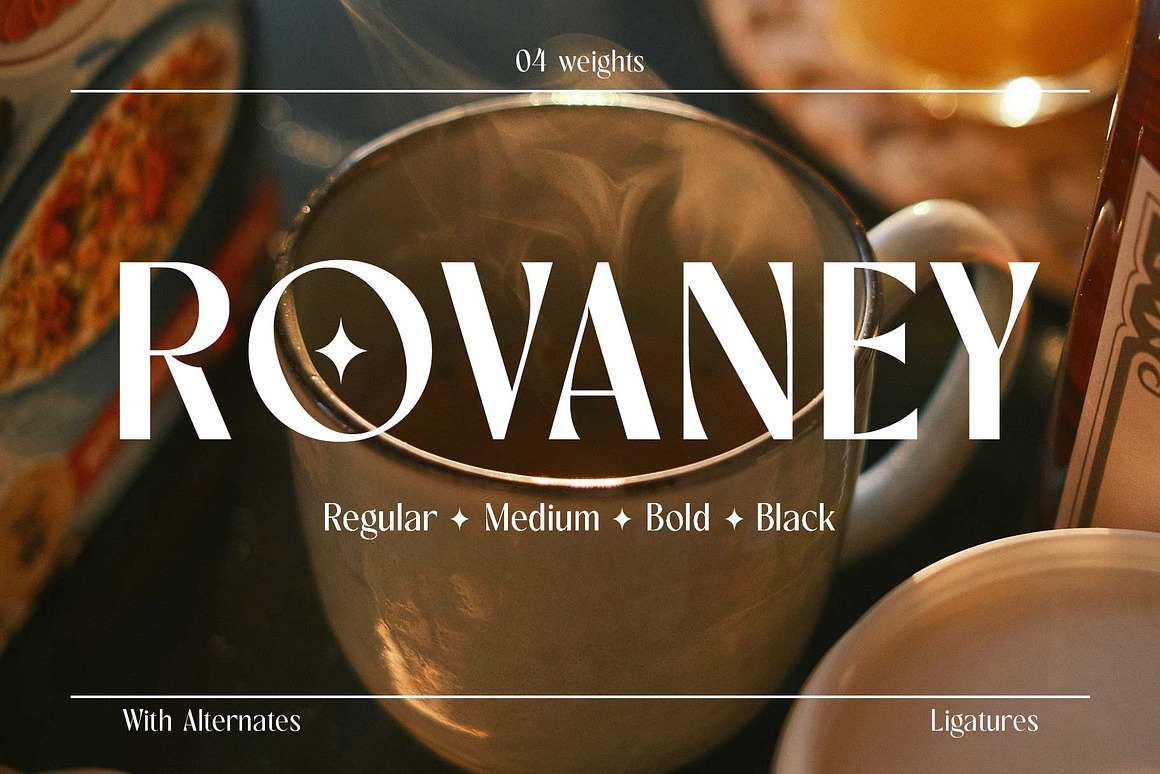
Rovaney Font
About Rovaney
Rovaney is a modern display font available in four weights: Regular, Medium, Bold, and Black. It features a stylish design with elegant curves, serifs, and strokes, making it versatile for various designs.